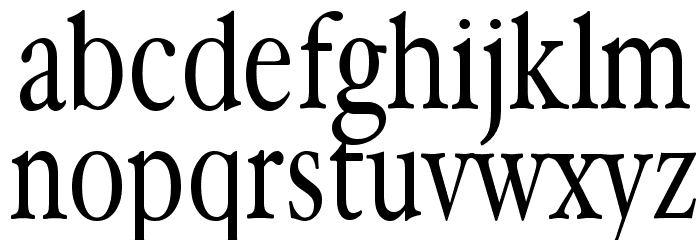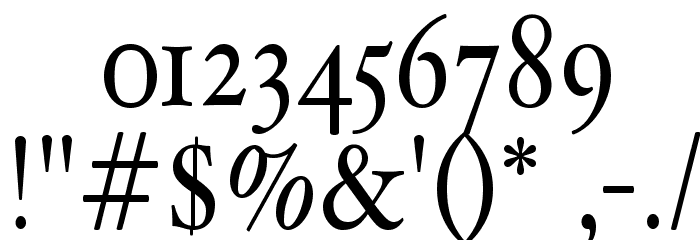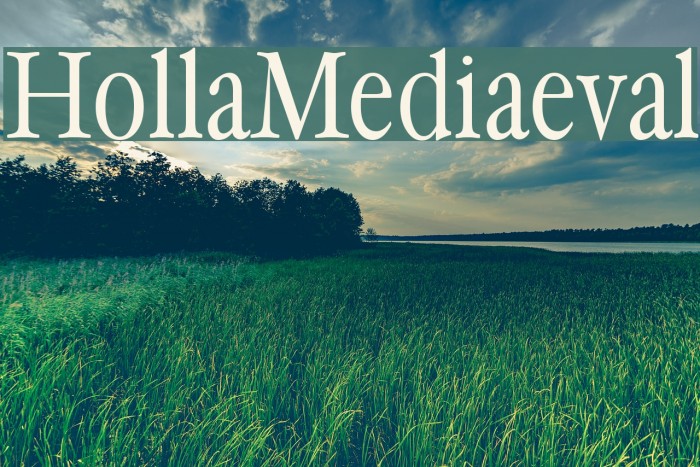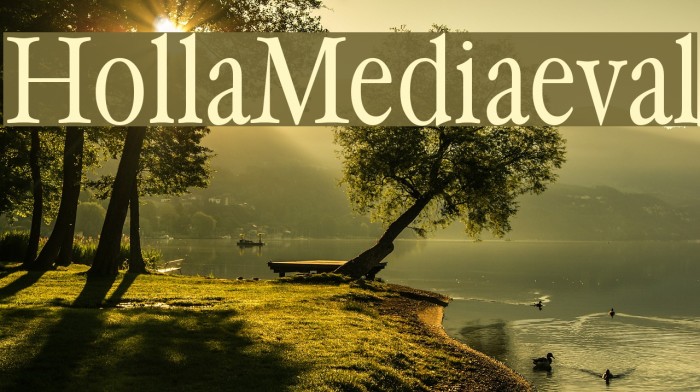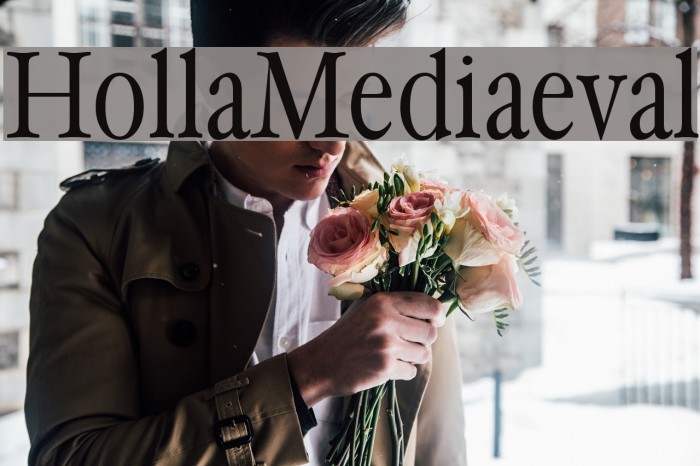
HollaMediaeval Font
This font exudes a classic elegance with its refined serif detailing and balanced proportions. The uppercase letters are stately and commanding, while the lowercase characters maintain a graceful flow. The numerals are distinct and clear, ensuring readability. Special characters are thoughtfully designed, complementing the overall aesthetic. The font's traditional style is reminiscent of historical typefaces, yet it maintains a modern sensibility that makes it versatile for various applications.
A classic serif font with elegant detailing and balanced proportions.
- Proposed Projects: Ideal for editorial design, book covers, formal invitations, and branding that requires a touch of sophistication.
- Category: Serif
- Overall Style: Classic
- Use Case: Headlines, Body text, Logos